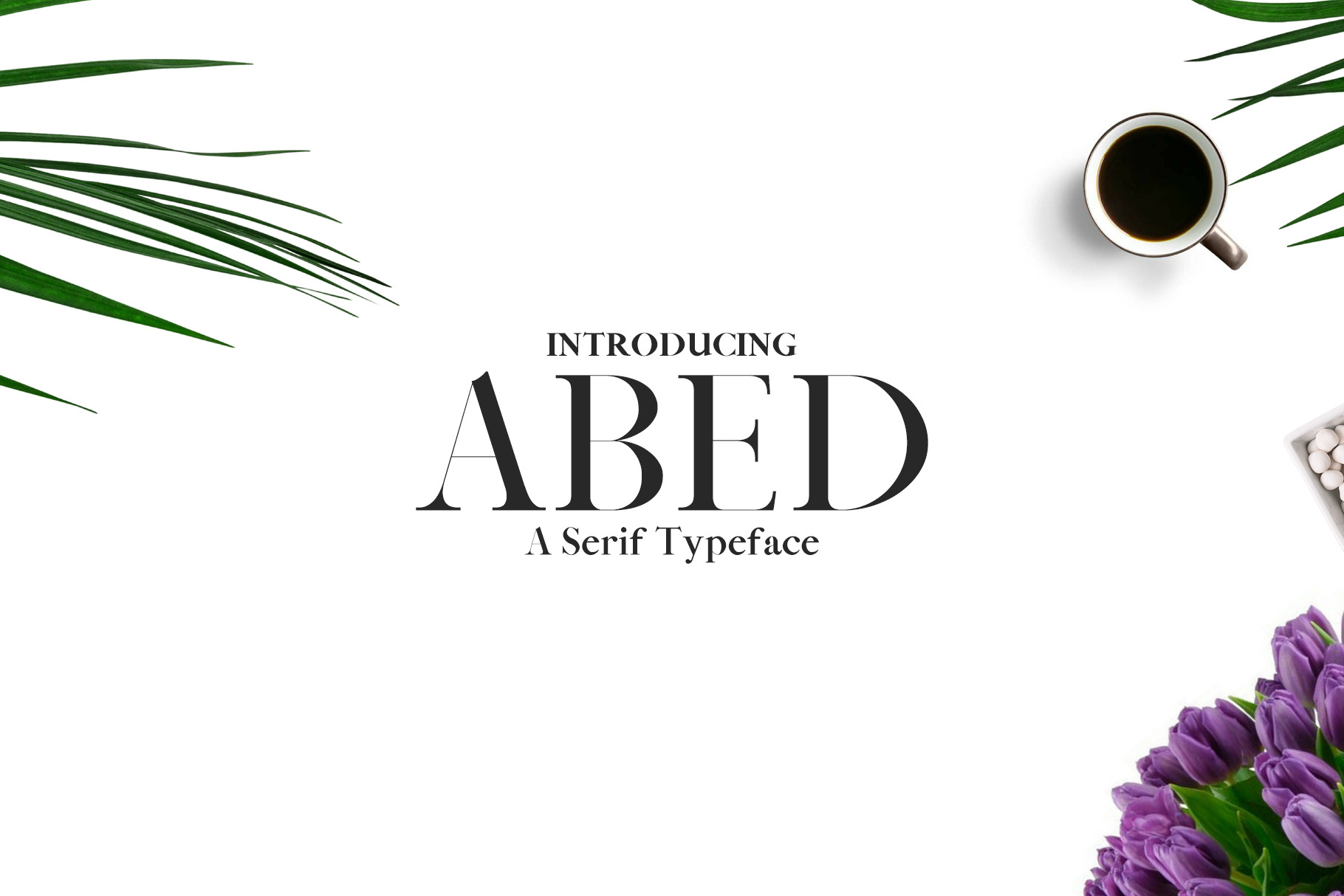
Abed Serif Font Family Pack
Abed Serif Font Pack is a creative and modern font perfect for use in logo designs, resume, headlines, banners and templates etc. It looks gorgeous in all caps with a wide-set spacing if you want to try a classy look, or beautiful on its own in capital and lowercase letters for something completely timeless.
- Regular, Light, Thin, Black, Bold
Abed Font Features:
- Uppercase Multilingual Letters
- Lowercase Multilingual Letters
- Non English Characters ( Latin Supplement + Latin Extended A)